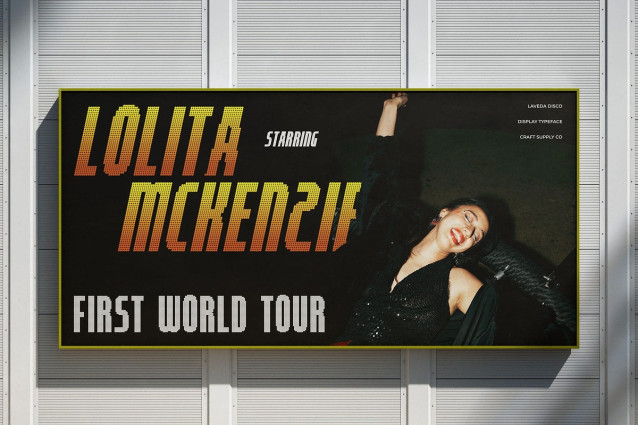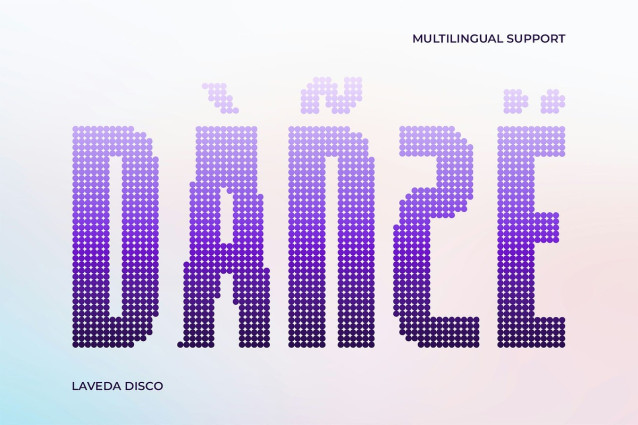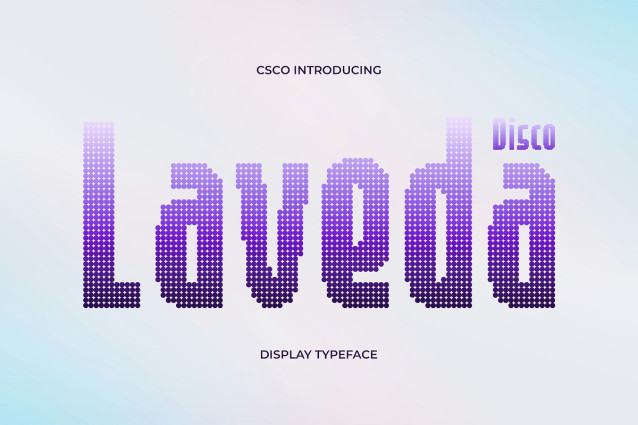
Laveda Disco Font features bold, clean, and contemporary shapes that convey strength, professionalism, and modernity. Its modern sans serif structure ensures clarity, balance, and readability, making it ideal for projects that require a confident and impactful visual presence. The sleek design creates a polished and sophisticated look, while the bold weight emphasizes authority and style.
Disco Flair for Dynamic Glamour A sparkling disco effect adds visual vibration, rhythm, and glamour to each letter. This subtle yet striking detail brings energy and movement to your text, transforming ordinary layouts into vibrant, eye-catching designs. The disco sparkle enhances the overall aesthetic, making typography feel dynamic, lively, and celebratory.
Bold, Modern, and Energetic By combining bold shapes, clean lines, and disco-inspired accents, Laveda Disco projects a strong, modern, and energetic personality. Its contemporary appeal makes it perfect for creative projects that want to stand out, grab attention, and convey freshness and vitality. The font balances professionalism with playful flair, making it versatile for a wide range of applications.
Perfect for Branding and Creative Projects Laveda Disco is ideal for branding, posters, headlines, advertising, packaging, social media, and other contemporary design projects. The combination of boldness, clean shapes, and disco sparkle ensures your work feels modern, stylish, and visually striking.